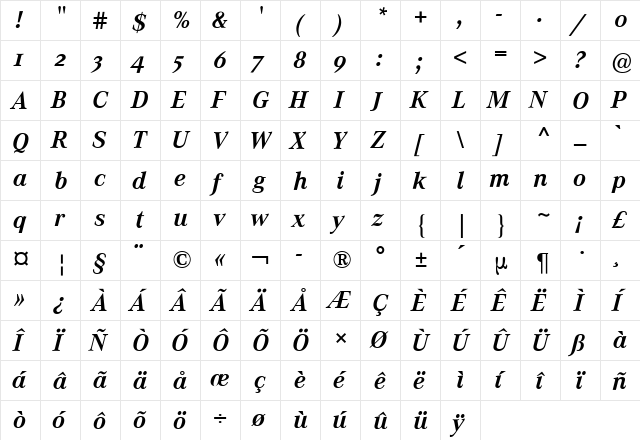
Corporate A Expert BQ Bold Italic Font Preview
Design Context for Corporate A Expert BQ Typeface
Corporate A Expert BQ offers clean, dependable letterforms without strong stylistic allegiance, making it a practical choice for designers who need flexibility. The dynamic lean of this cut emphasises speed and emphasis in any layout. The heavy weight commands attention and anchors typographic hierarchies.
Pro Tip: Use Corporate A Expert BQ for emphasis, pull quotes, and subheadings where its slanted energy can add rhythm to the layout.